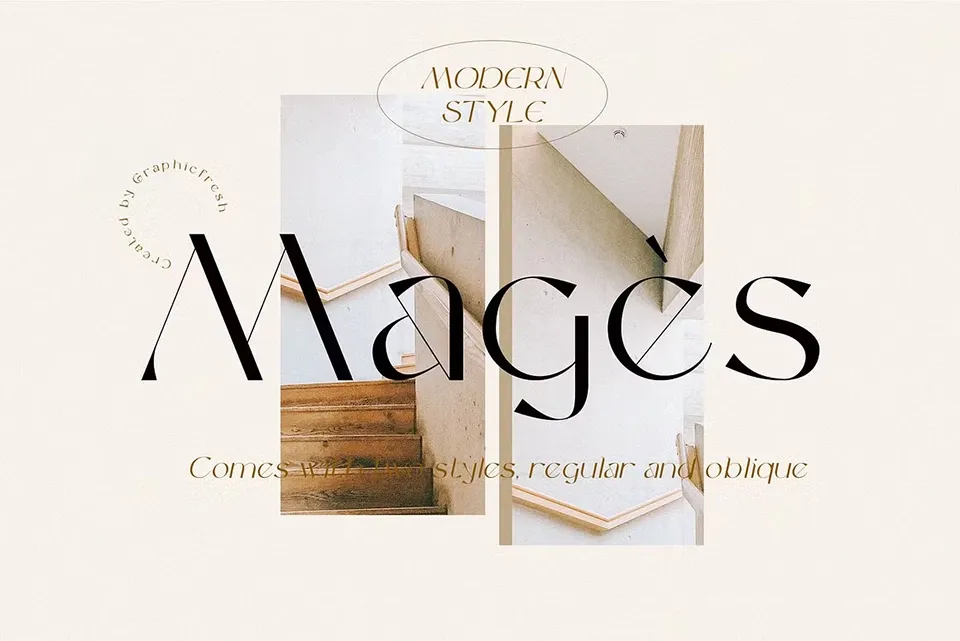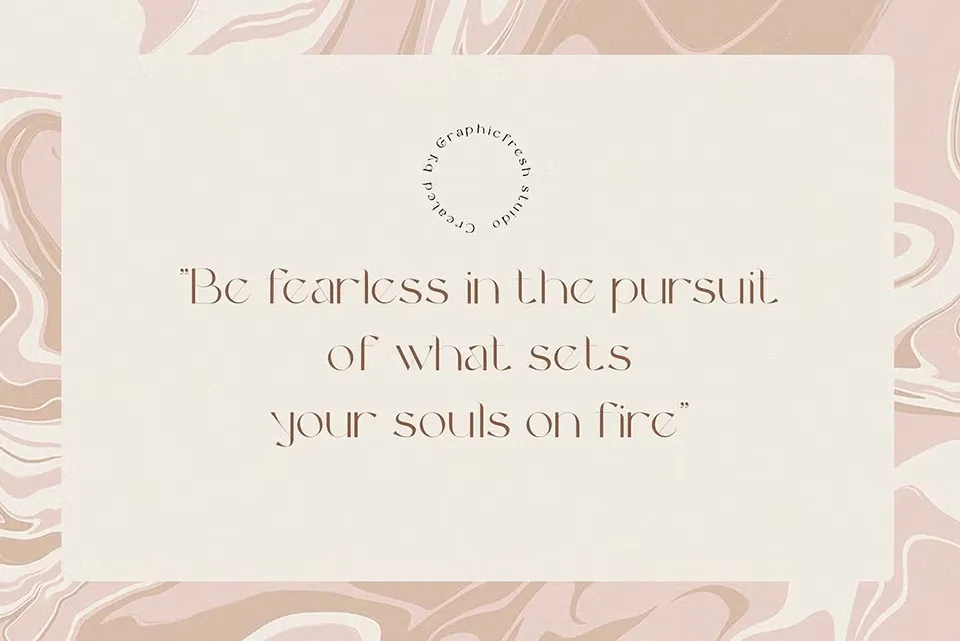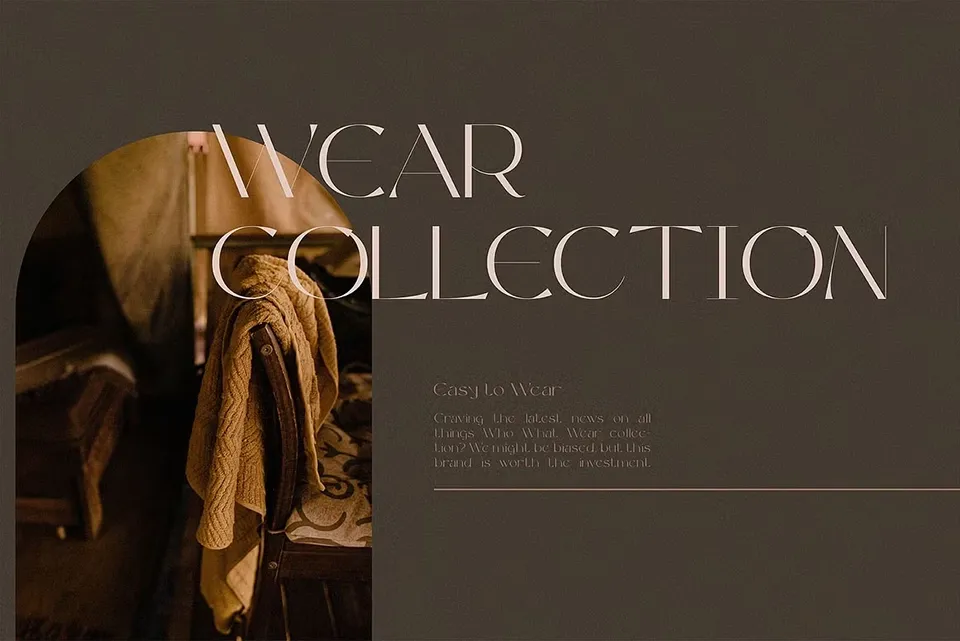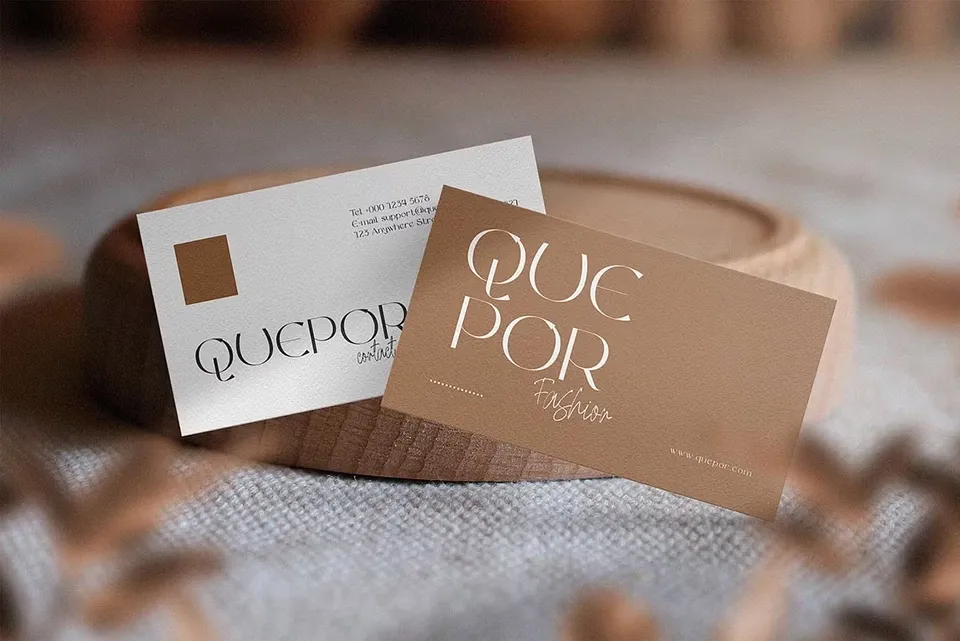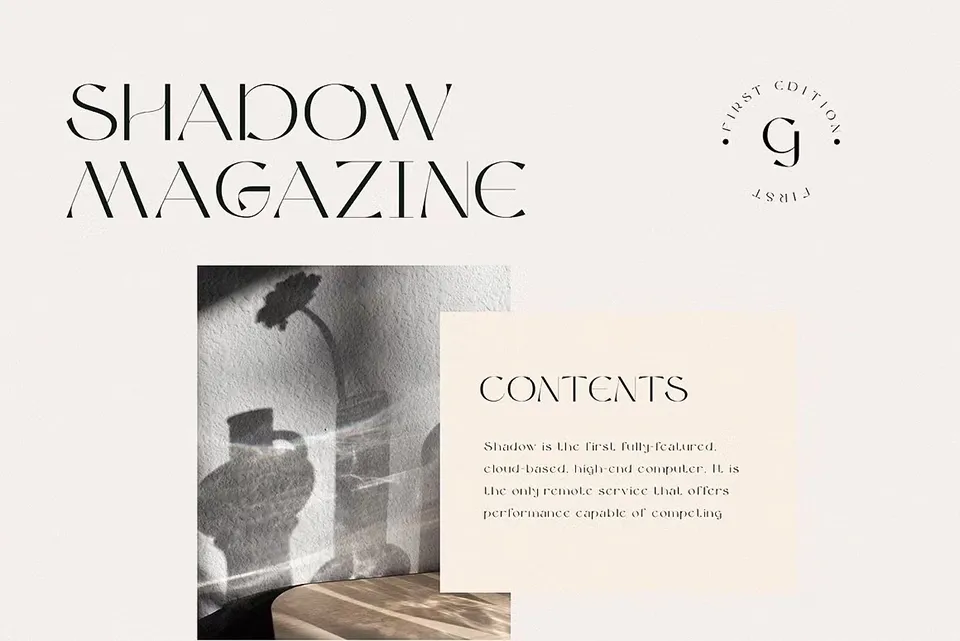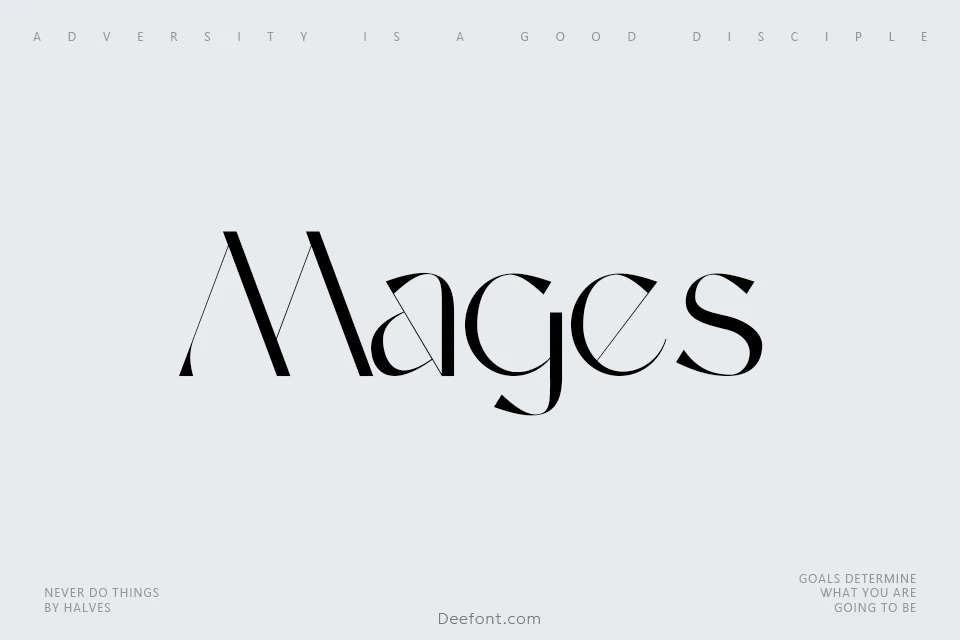
Mages Font
Magès Font is a modern and elegant serif typeface designed to blend classic shapes with a contemporary minimalist character. Each letter features unique details, offering both masculine and feminine qualities, making it memorable and versatile. Perfect for logos, magazine layouts, invitations, headers, and large-scale artwork, Magès Font brings sophistication and style to any creative project.